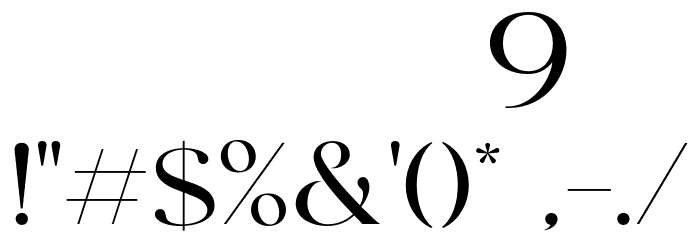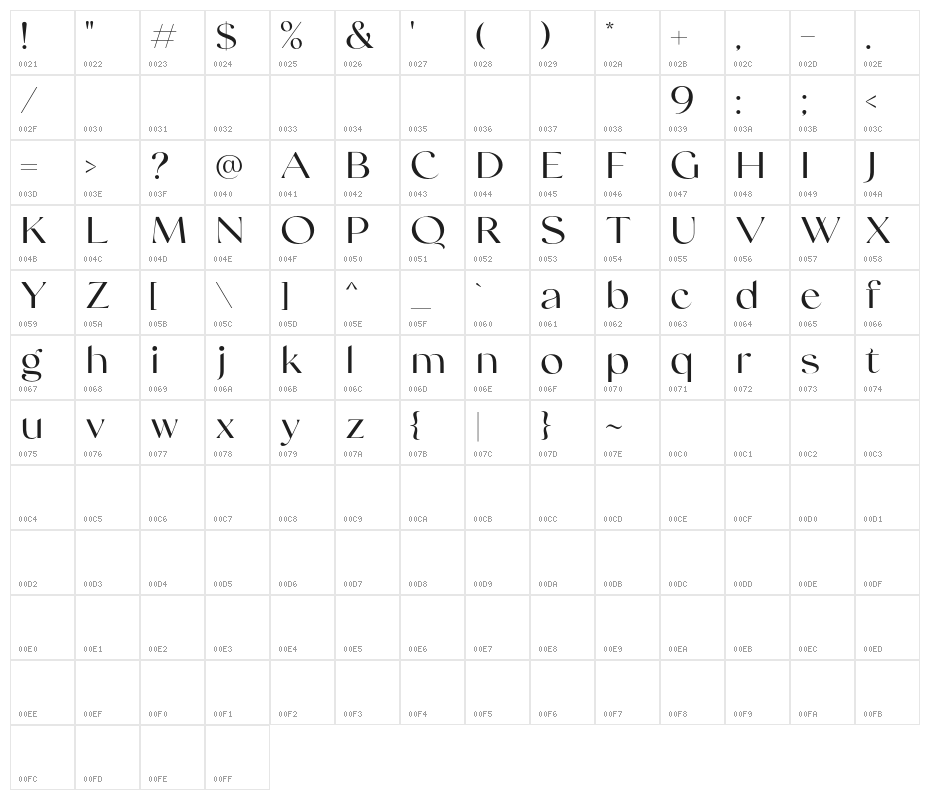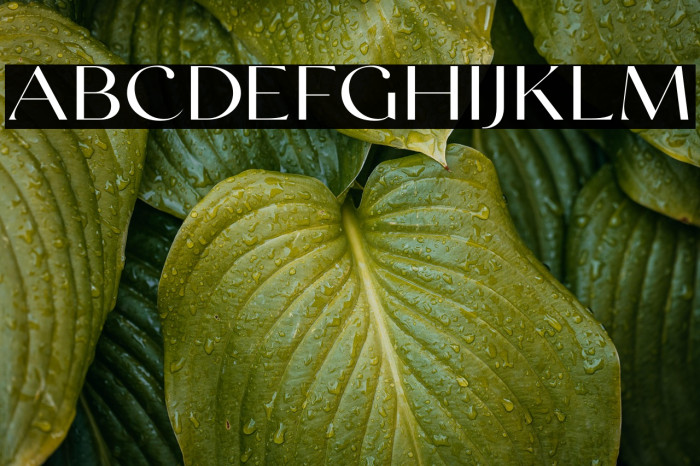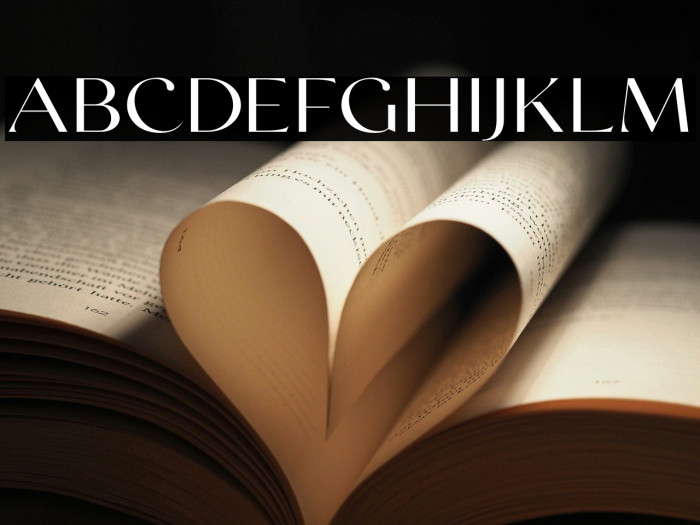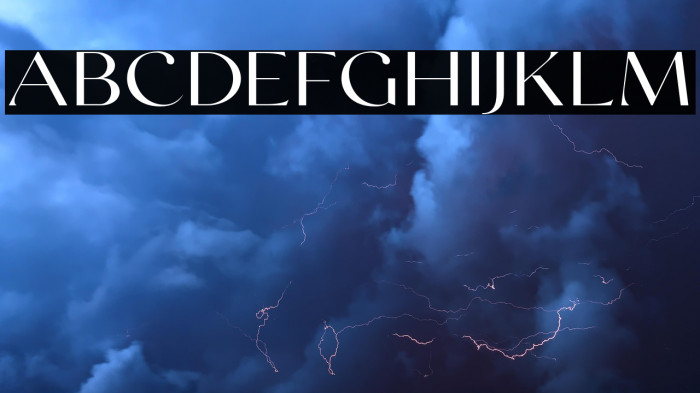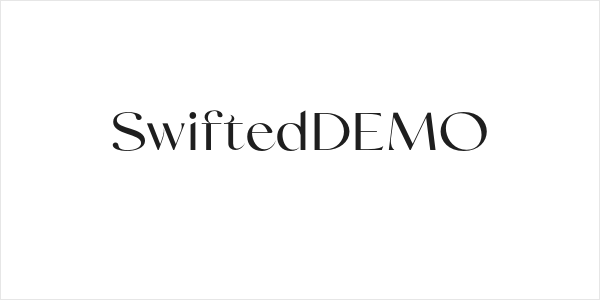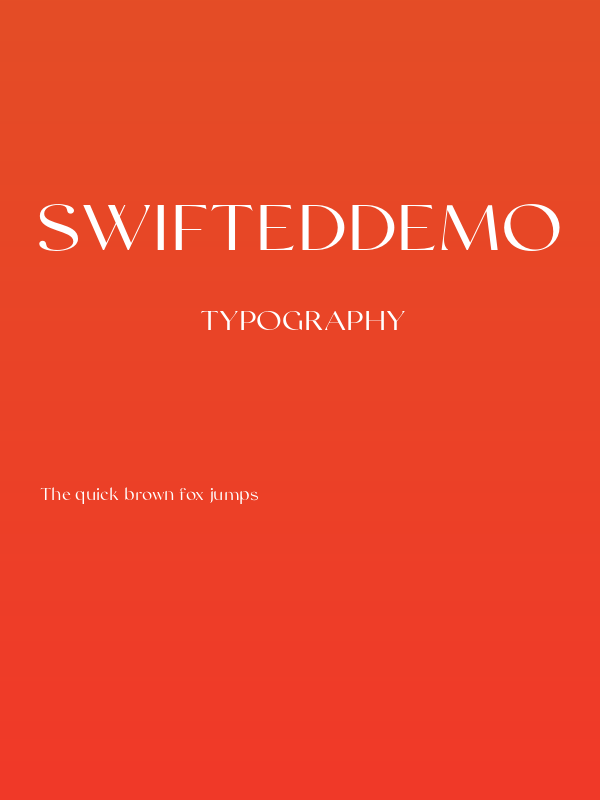
SwiftedDEMO Font
SwiftedDEMO Description
This font exhibits a modern and elegant style with a high contrast between thick and thin strokes, giving it a sophisticated and stylish appearance. The uppercase letters are sleek and elongated, while the lowercase letters maintain a consistent flow with subtle curves. The numerals are bold and distinctive, ensuring readability. Special characters are designed with a unique flair, adding to the font's decorative appeal. The overall design is clean and contemporary, making it suitable for a variety of design projects.
| Overall Style | Modern, Elegant |
| Use Case | Headlines, Logos, Editorials |
| Proposed Projects | Ideal for fashion magazines, luxury branding, editorial headlines, and elegant invitations. |